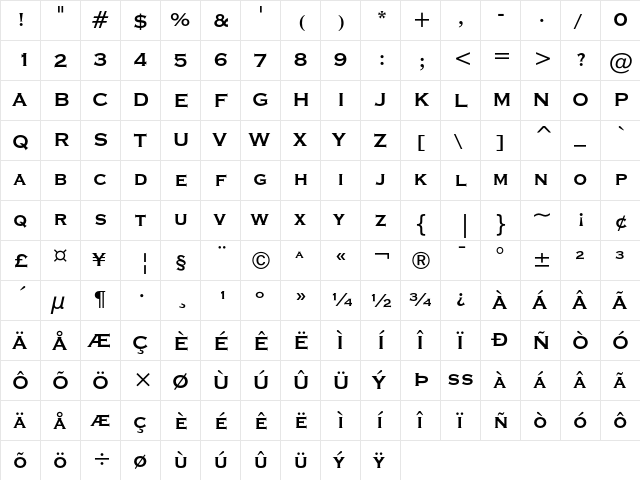
Copperplate Gothic Bold Font Preview
Copperplate Gothic Bold
Copperplate Gothic Bold Font Details
Design Context for Copperplate Gothic Typeface
Copperplate Gothic takes a clean, functional approach — its unadorned letterforms prioritise legibility and work reliably across screen and print environments. Its bold stroke weight gives it real presence on the page.
Well-suited to navigation labels, product packaging, and anywhere legibility at scale is essential.
Font Pairing: Use Copperplate Gothic for headlines alongside a lighter-weight sans or serif for body copy to establish clear visual hierarchy.
Pro Tip: Use Copperplate Gothic for UI labels, navigation, and short-form body copy where clean legibility is the priority.